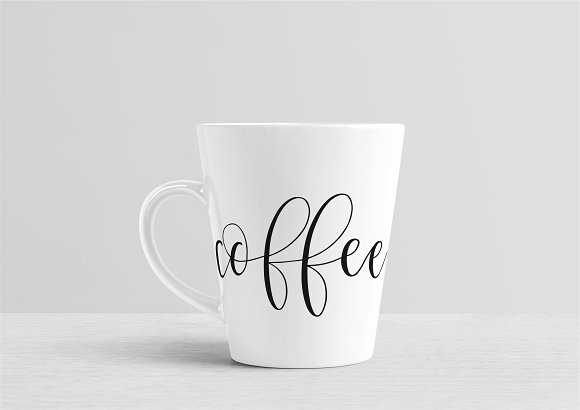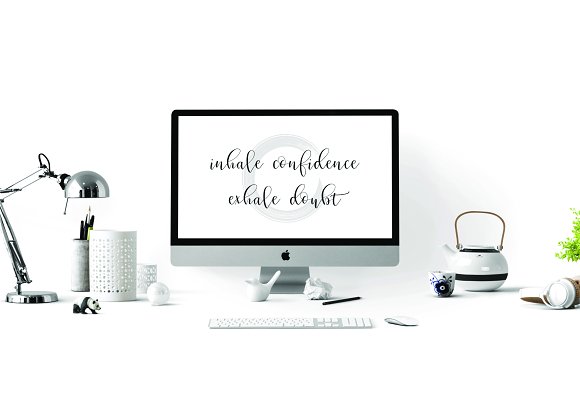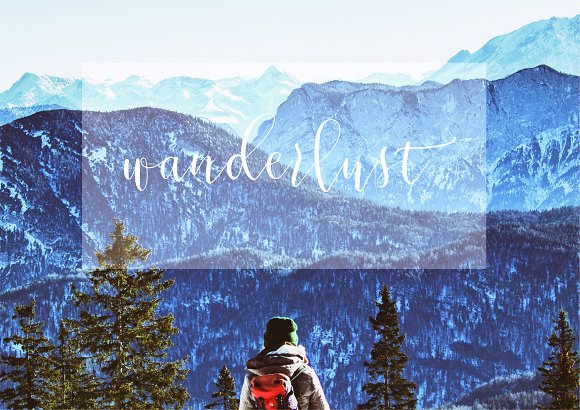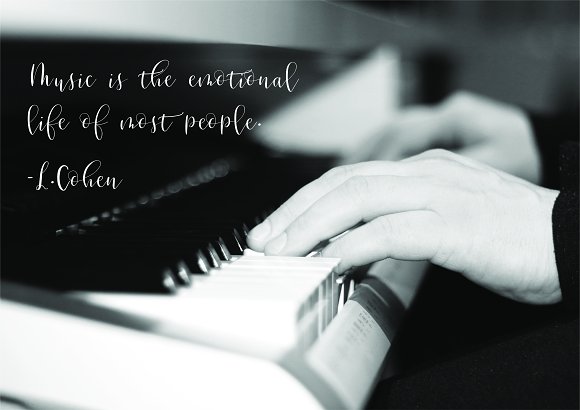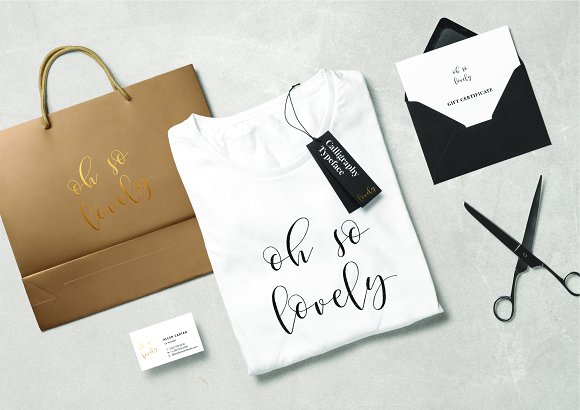
Apple Tree Calligraphy Typeface
Say hello to Apple Tree bouncy calligraphy style font! Created by hand with lots of love and care, it is perfect for greeting cards, logos, wedding stationaries, social media, branding, and more! Included are uppercase and lowercase characters with tons of standard ligatures that are carefully designed to create an authentic look. Apple Tree Script contains multilingual support.